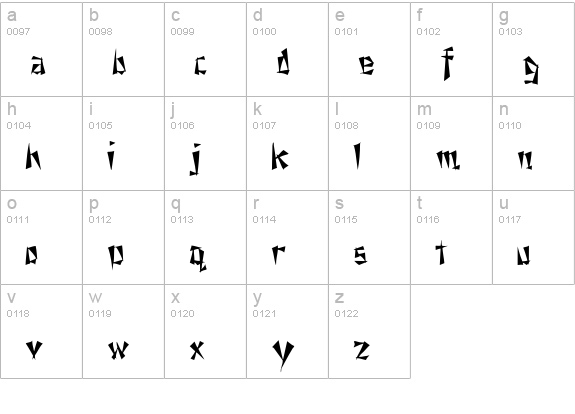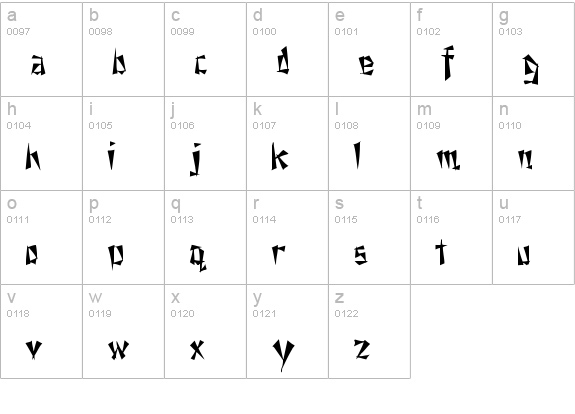
NixonInChina Font Details
NixonInChina font is a modern and stylish typeface that exudes elegance and sophistication. With its sleek lines and sharp angles, this font is perfect for a wide range of design projects, from branding to editorial design. The unique character of NixonInChina font adds a touch of personality and flair to any text or headline. What's even better is that NixonInChina font is completely free to download at FontsMarket.com. This means you can elevate your designs without breaking the bank. Don't miss out on the opportunity to add this stunning font to your collection today!